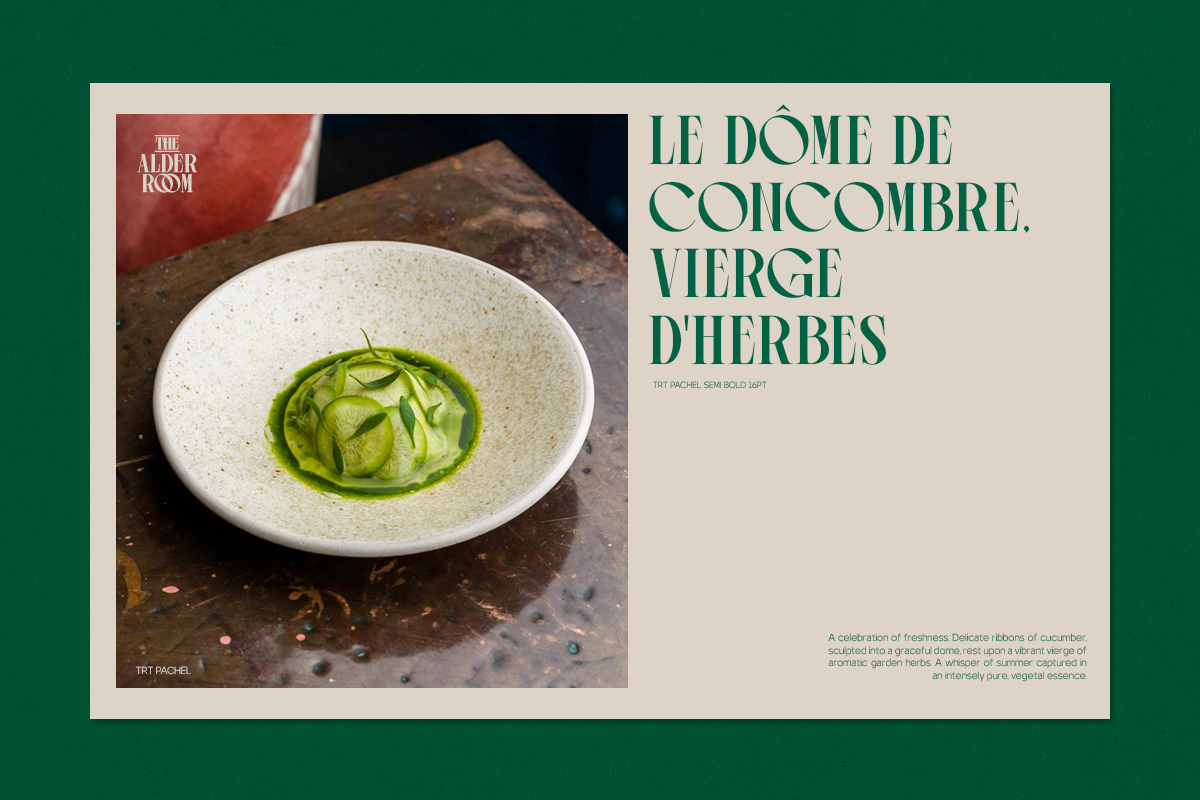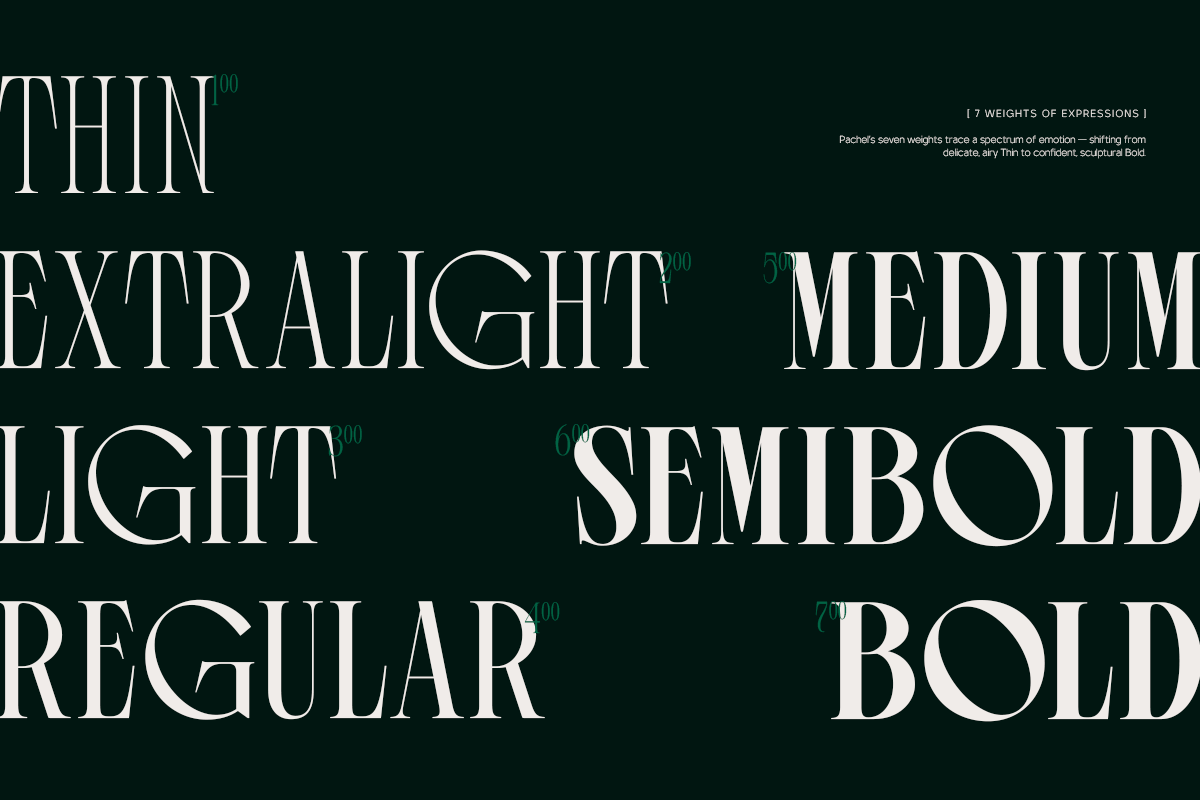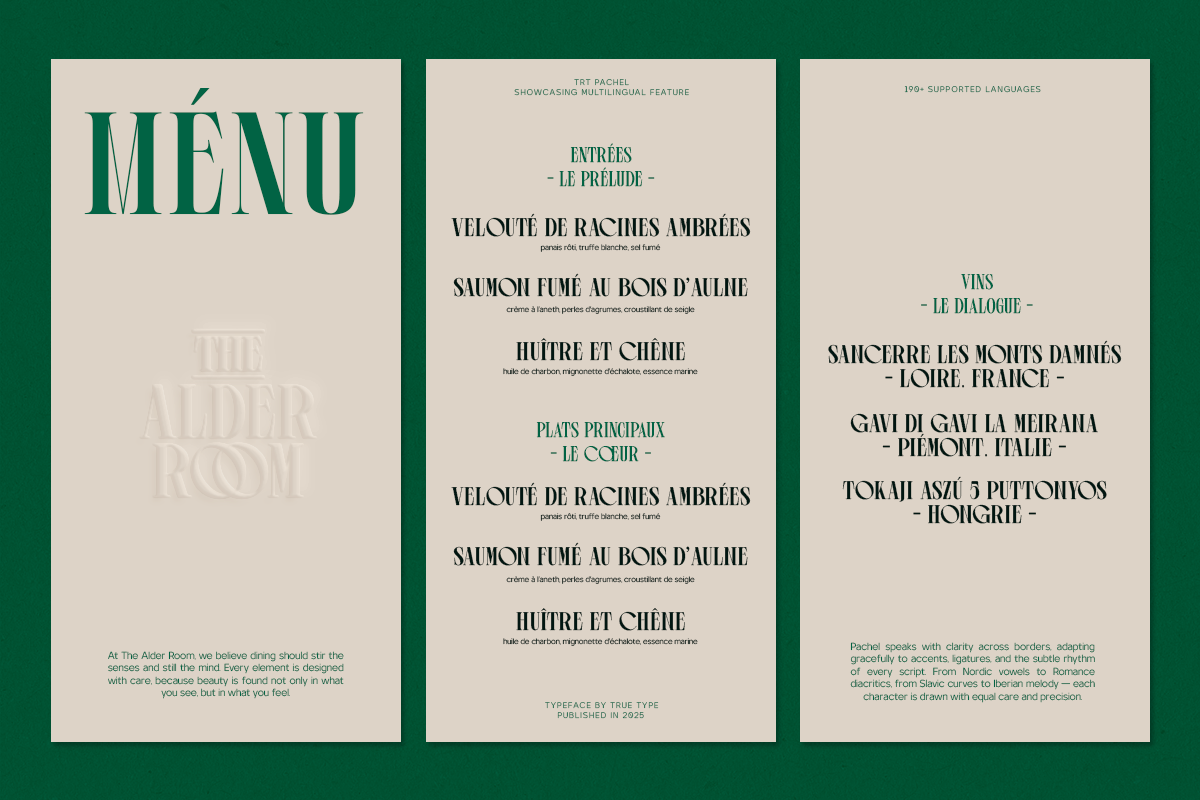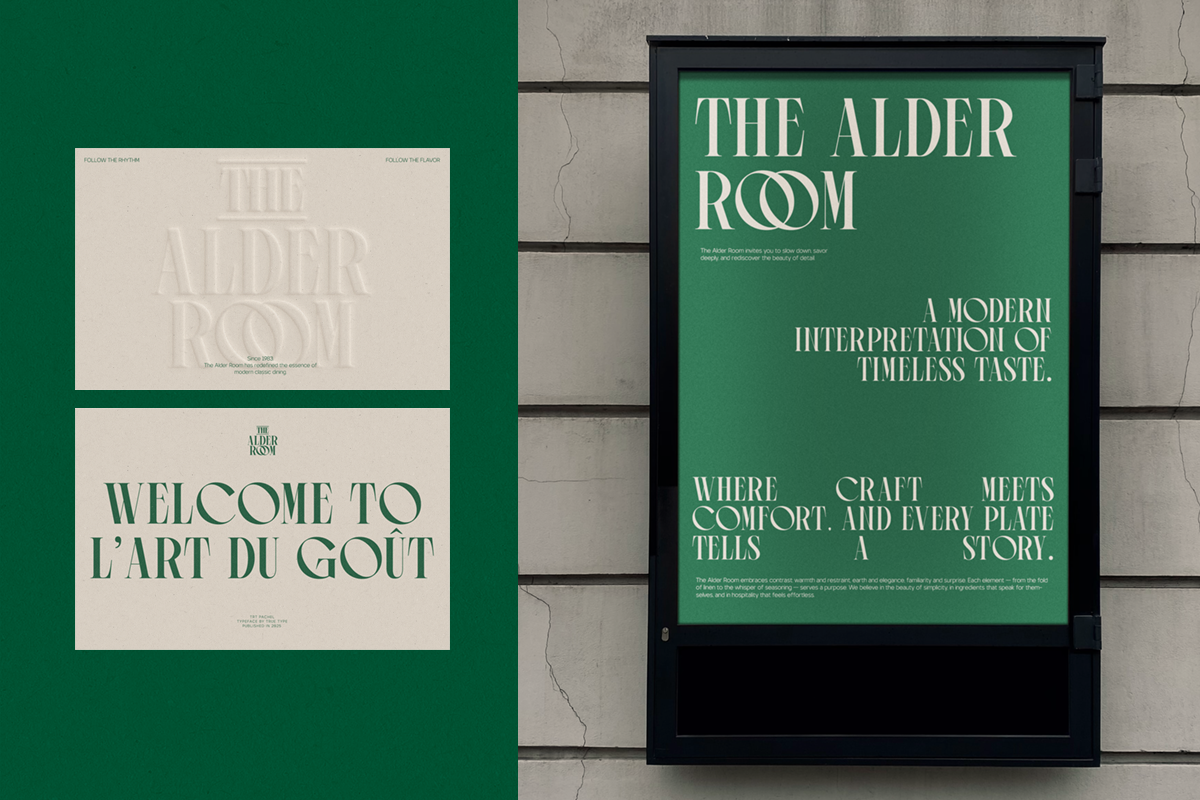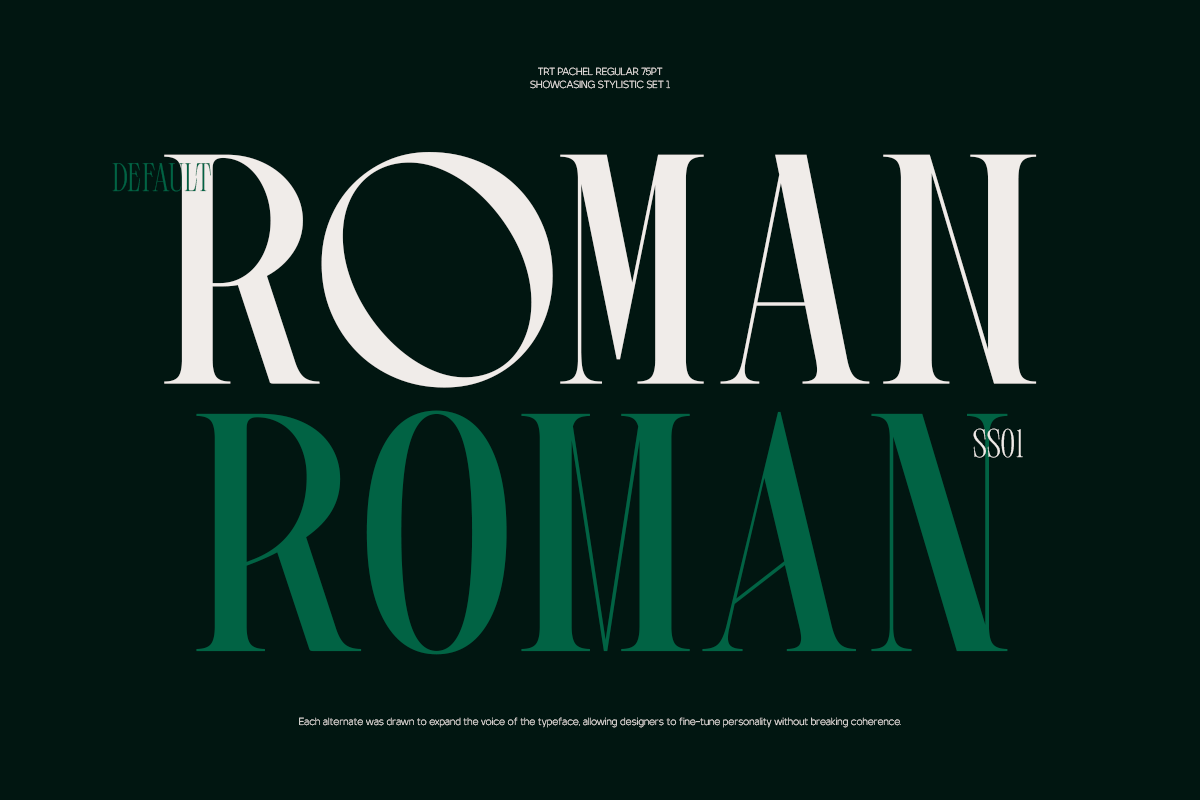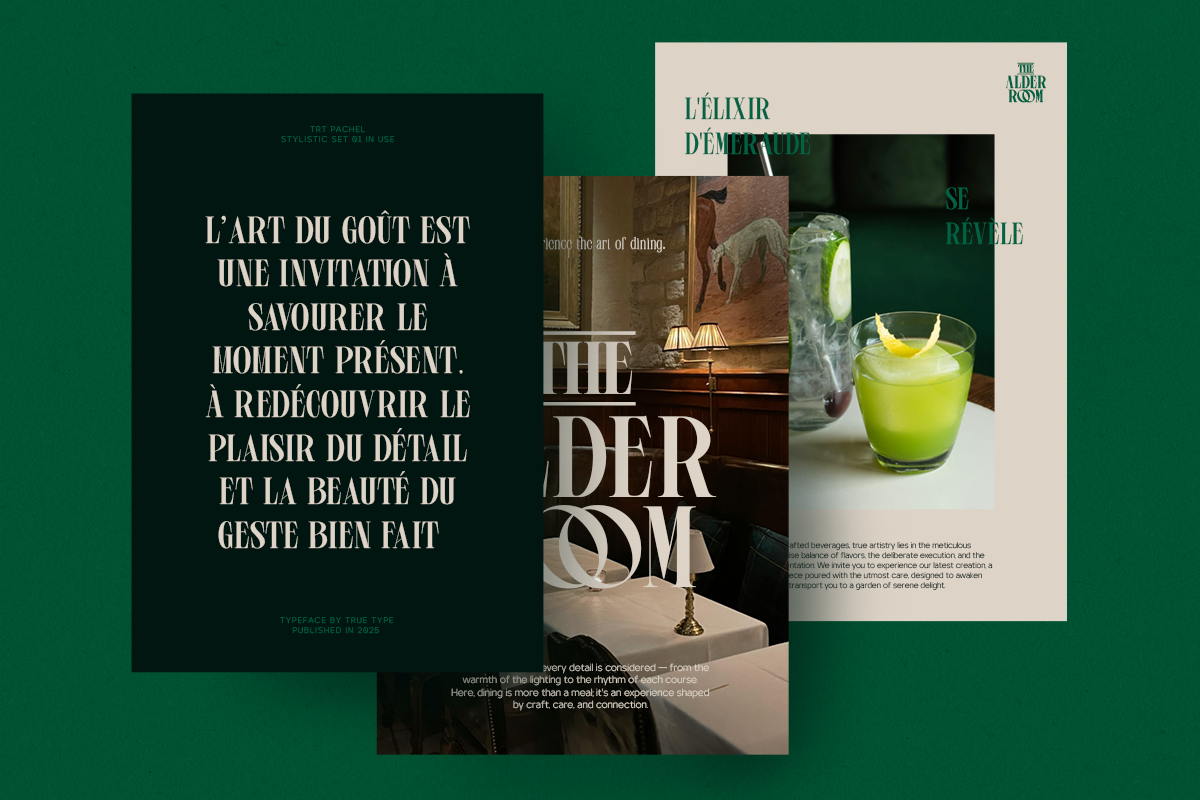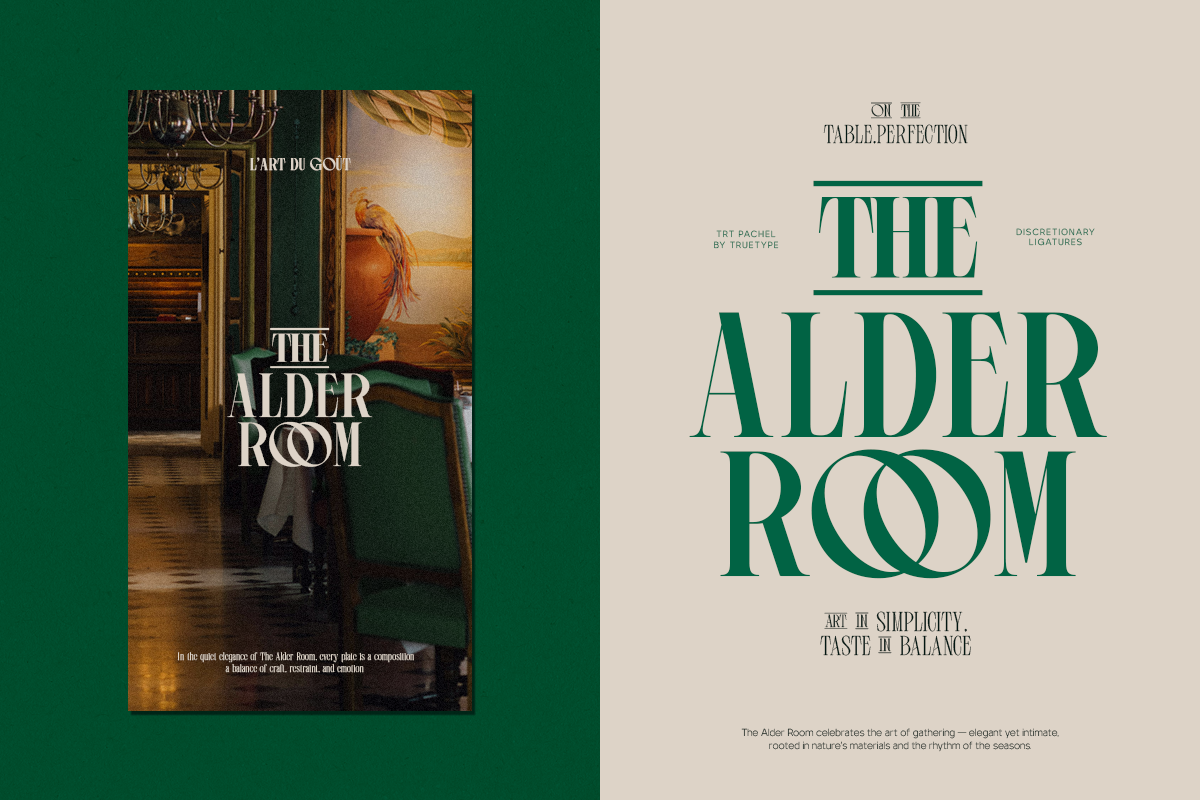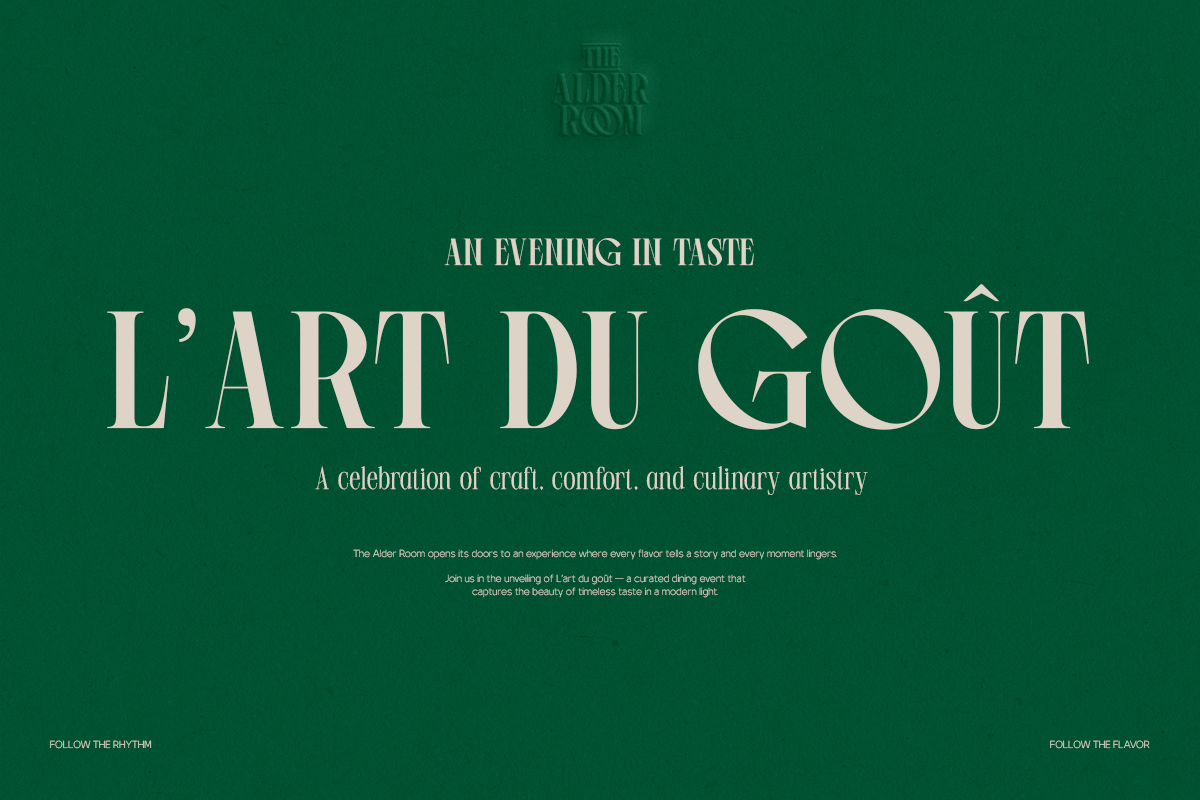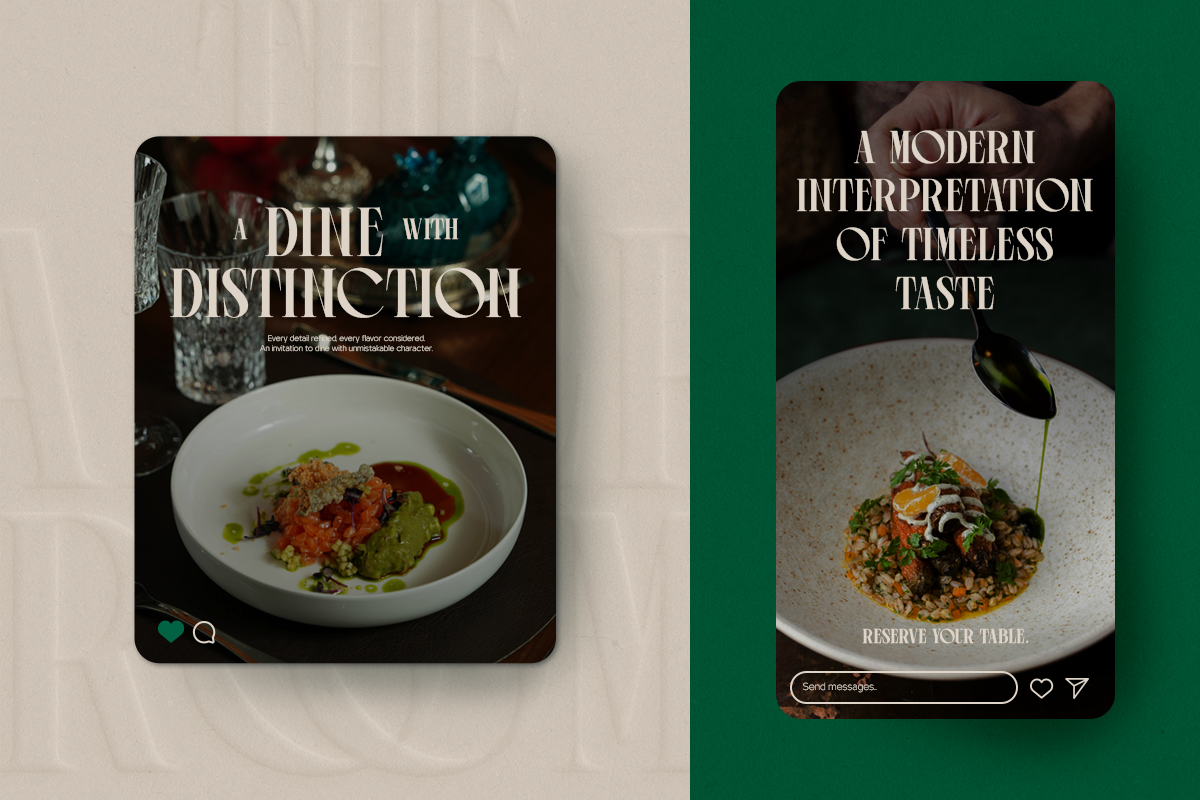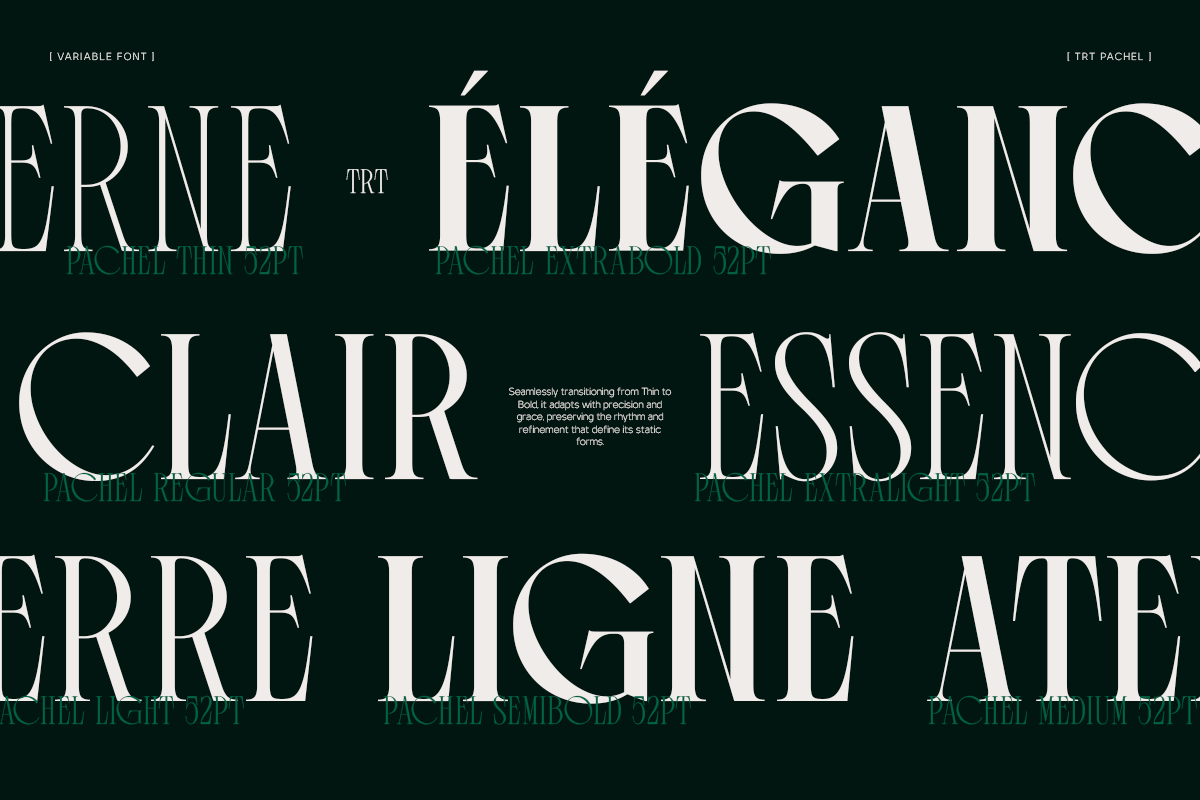
TRT Pachel Luxury Editorial Serif
TRT Pachel is a luxury high-contrast serif font designed for editorial layouts, fine-dining branding, and premium visual identities. With elegant proportions, refined curves, and expressive ligatures, TRT Pachel delivers a timeless yet modern look for logos, menus, magazines, and boutique branding. Perfect for designers who seek sophistication in every detail.